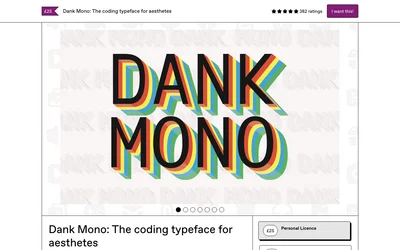
Fira Code vs Dank Mono
Here’s how Fira Code compares to Dank Mono when you care about day-to-day usability more than pedigree. With 78% similarity, Fira Code provides the most extensive ligature set available among free fonts, matching Dank Mono's programming ligature functionality. One practical difference: Fira Code supports ligatures, which changes the feel in code-heavy UIs.
Where You'll See These Fonts
Dank Mono
• VS Code setups
• Developer streams
• Tech influencer content
• GitHub READMEs showcasing configs
• JavaScript/TypeScript development
Recommended: Fira Code
• Shares Dank Mono's modern character
• Particularly suited for web development and terminal customization
• Variable font with continuous weight adjustment
• Supports 6 scripts including cyrillic and cyrillic-extended
• Delivers a clean, modern, simple aesthetic
Consider: Dank Mono
• Original design with refined typographic details
• Designed specifically for code-editors and terminal
• Used by VS Code setups, Developer streams